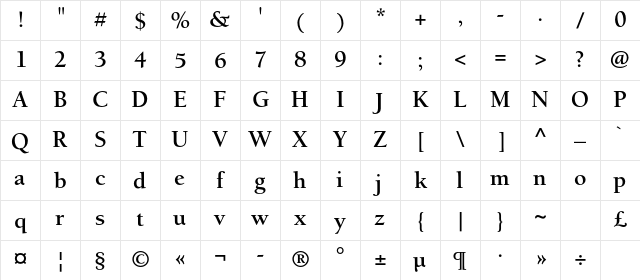
Complete AllianceC Bold glyph index. Displaying only characters natively supported by AllianceC Bold font.
AllianceC is a composed and adaptable typeface that performs quietly and consistently across a wide range of design contexts. Its bold stroke weight gives it real presence on the page.